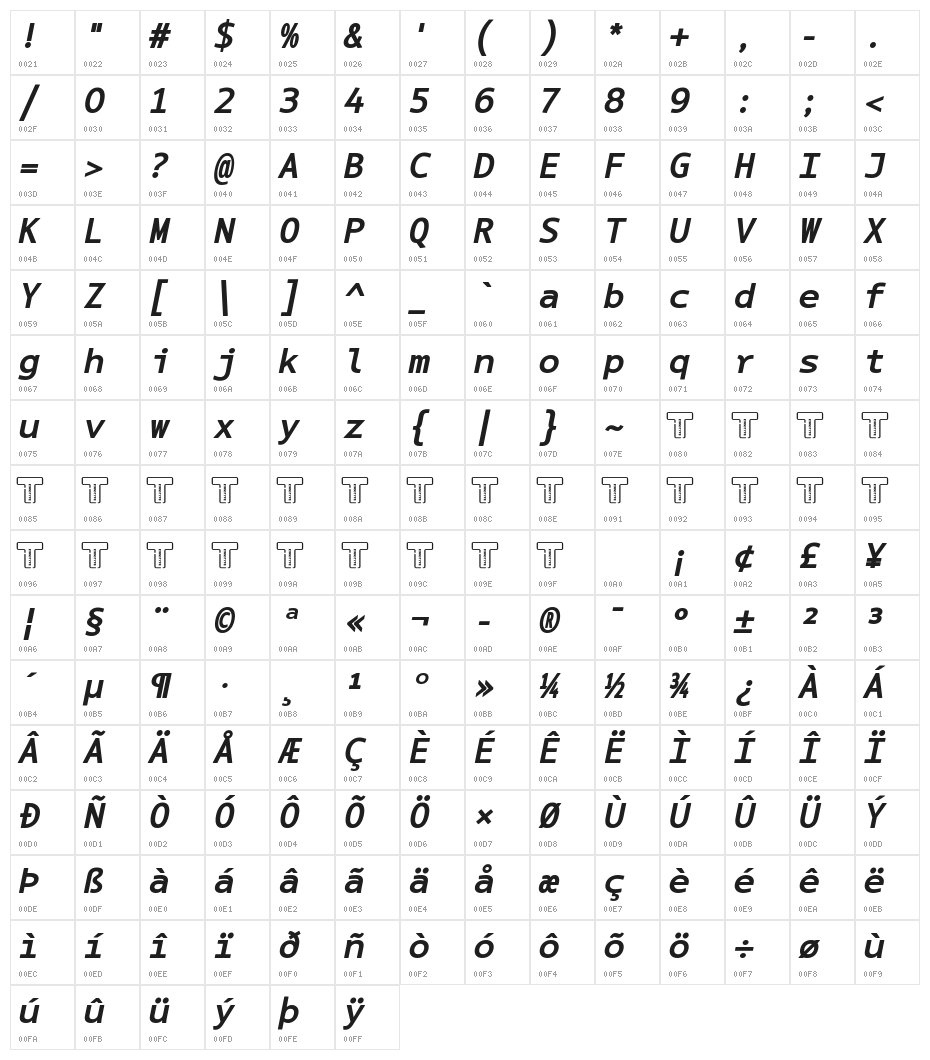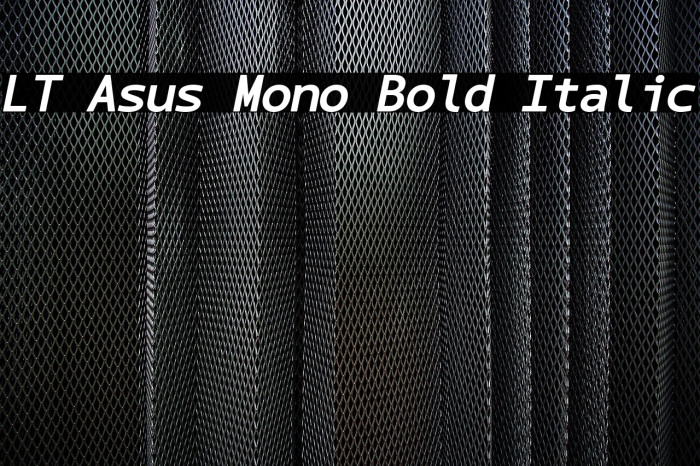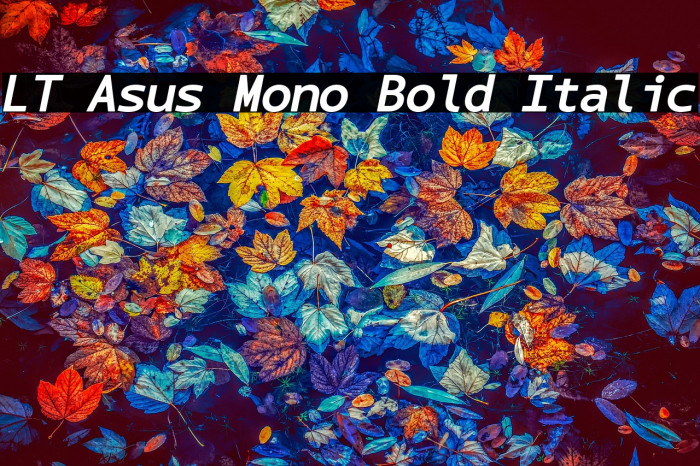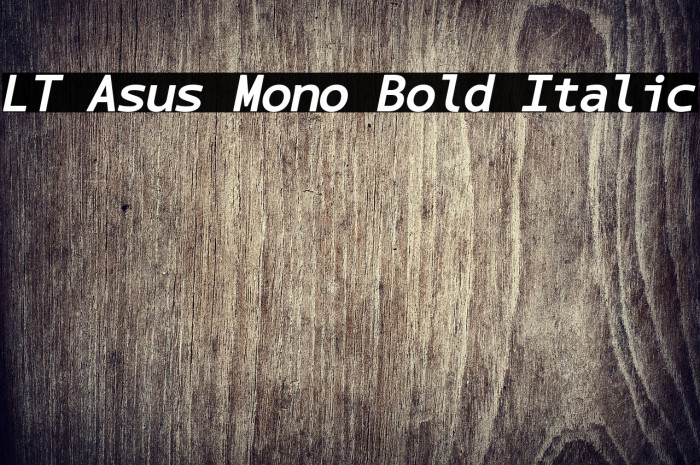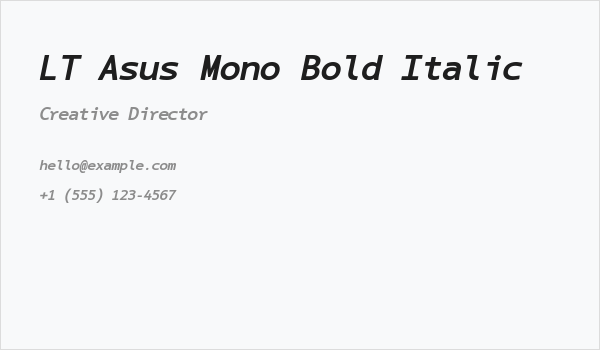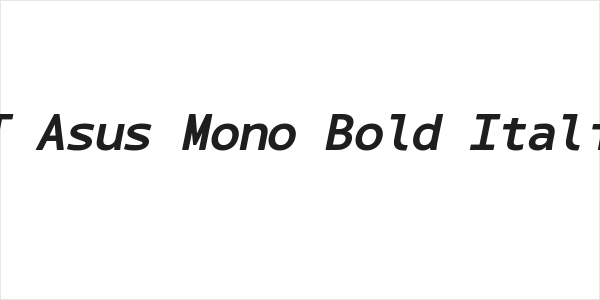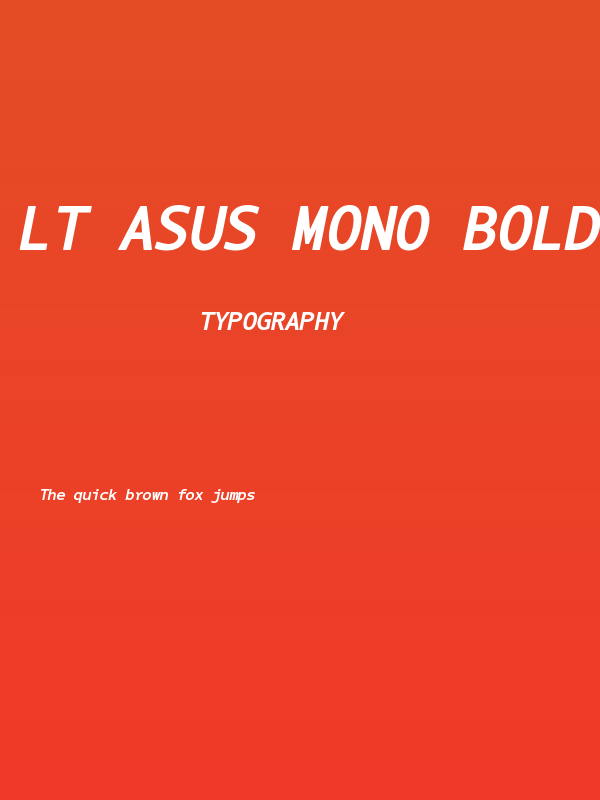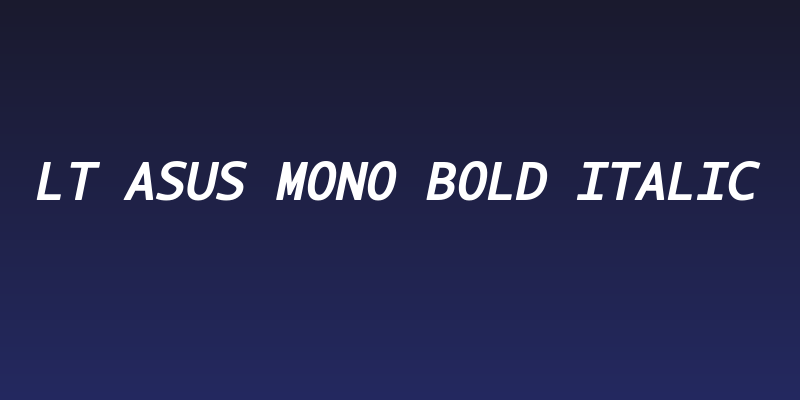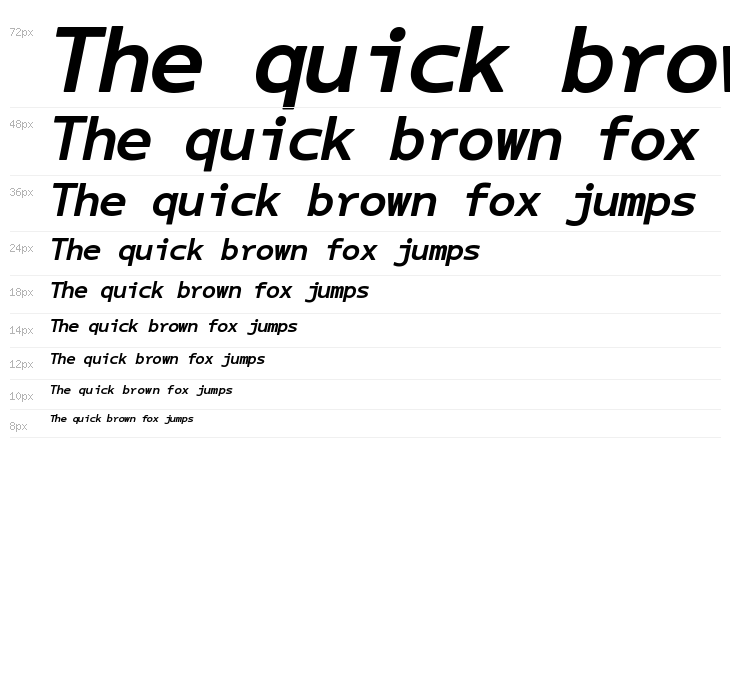
LT Asus Mono Bold Italic Font
LT Asus Mono Bold Italic Description
This font presents a modern and sleek monospaced style, characterized by its bold and italicized appearance. Each character maintains a uniform width, which is typical of monospaced fonts, providing a clean and organized look. The italic slant adds a dynamic and forward-moving feel, making it suitable for contemporary designs. The bold weight ensures strong visibility and impact, ideal for headings or emphasis in text. The characters are well-spaced, offering readability without compromising the compact nature of a monospaced font. The overall style is modern, with a slight technical edge, making it versatile for various digital applications.
| Use Case | Headlines, Code, Technical documents |
| Proposed Projects | Ideal for coding environments, technical documentation, modern branding, and digital interfaces. |